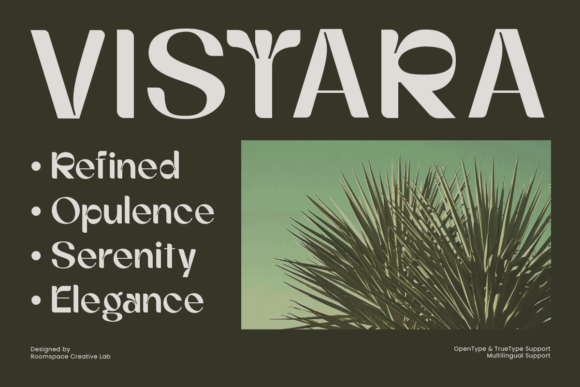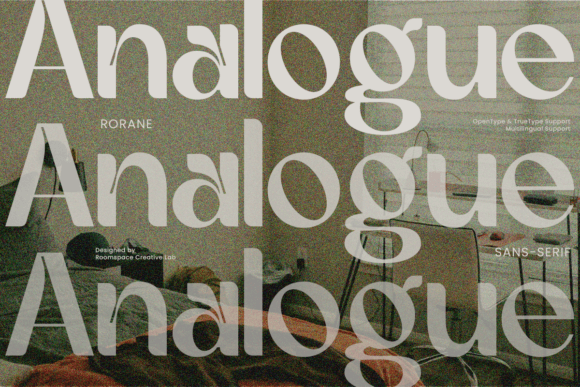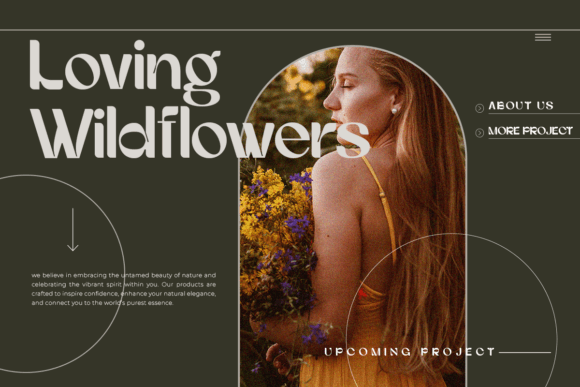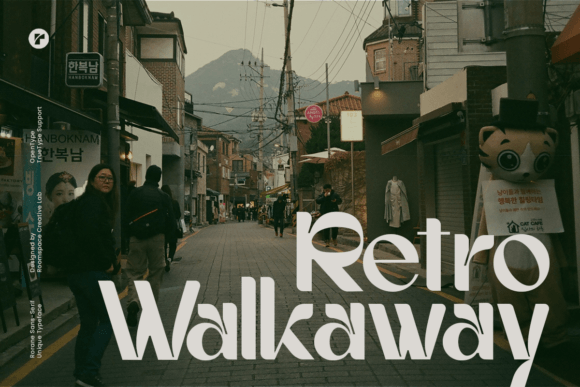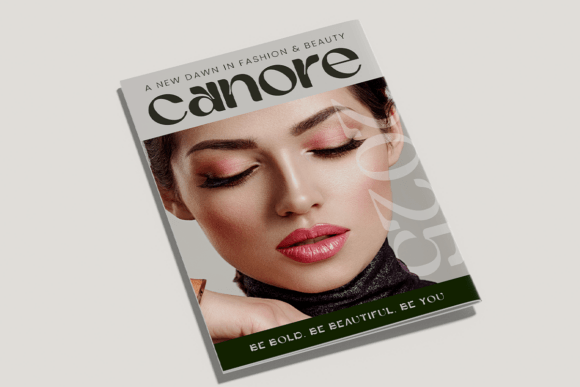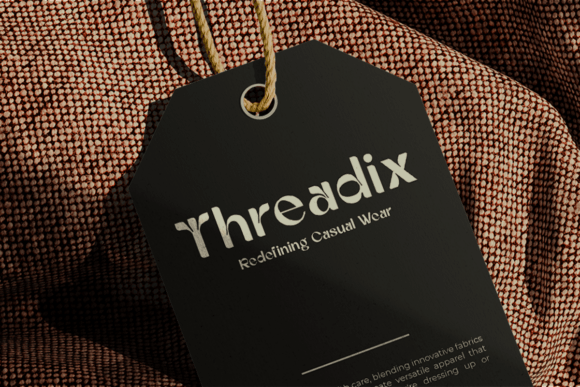
Introduction to Rorane Font
As a designer, there’s nothing quite like the thrill of staring at a blank page, waiting for inspiration to strike. The cursor blinks, and you start to envision a project taking shape. This is the moment when the right font can make all the difference – and that’s where Rorane Font comes in. With its clean lines and bold character, this modern sans-serif font is the perfect companion for your creative journey.
Whether you’re working on a high-profile branding project or a personal design endeavor, Rorane Font offers a level of versatility that’s hard to find. Its transparent background and high-quality design make it a valuable resource for designers, allowing you to add a fresh and modern touch to any project. From magazine headings to packaging and branding, Rorane Font is the perfect design resource to elevate your creative project to the next level.
Key Features of Rorane Font
- Unique, high-quality design for creative projects, offering a distinctive aesthetic.
- Perfect for designers and artists working on creative projects, requiring a stylish and professional font.
Honest Review: Rorane Font
The Rorane Font is particularly useful for designs that require a modern and elegant feel. Its clean lines and sophisticated typography make it perfect for titles, headings, and even body text. I was able to achieve a high-quality look with ease, thanks to its extensive character set and ligature support.
- High-quality design that exudes sophistication and elegance
- Transparent background option, ideal for overlaying text on images
- Extensive character set and ligature support for versatility
- Some users may find the font to be a bit too modern or trendy
- Limited support for certain languages or character sets
Overall, I’m impressed with the Rorane Font and would recommend it for designers looking to add a touch of elegance to their creative projects. With its high-quality design and versatile features, it’s a valuable addition to any design resource library.
The Rorane Font is commonly used in various design projects, including brochures, flyers, business cards, and websites. Its unique style and high-quality design make it an ideal choice for creative projects requiring a touch of sophistication.
Tips for Getting the Most Out of Rorane Font
To get the most out of the Rorane Font, experiment with different font sizes, colors, and styles to create unique and eye-catching designs. Use the font in conjunction with other design elements, such as images and graphics, to add depth and interest to your designs.